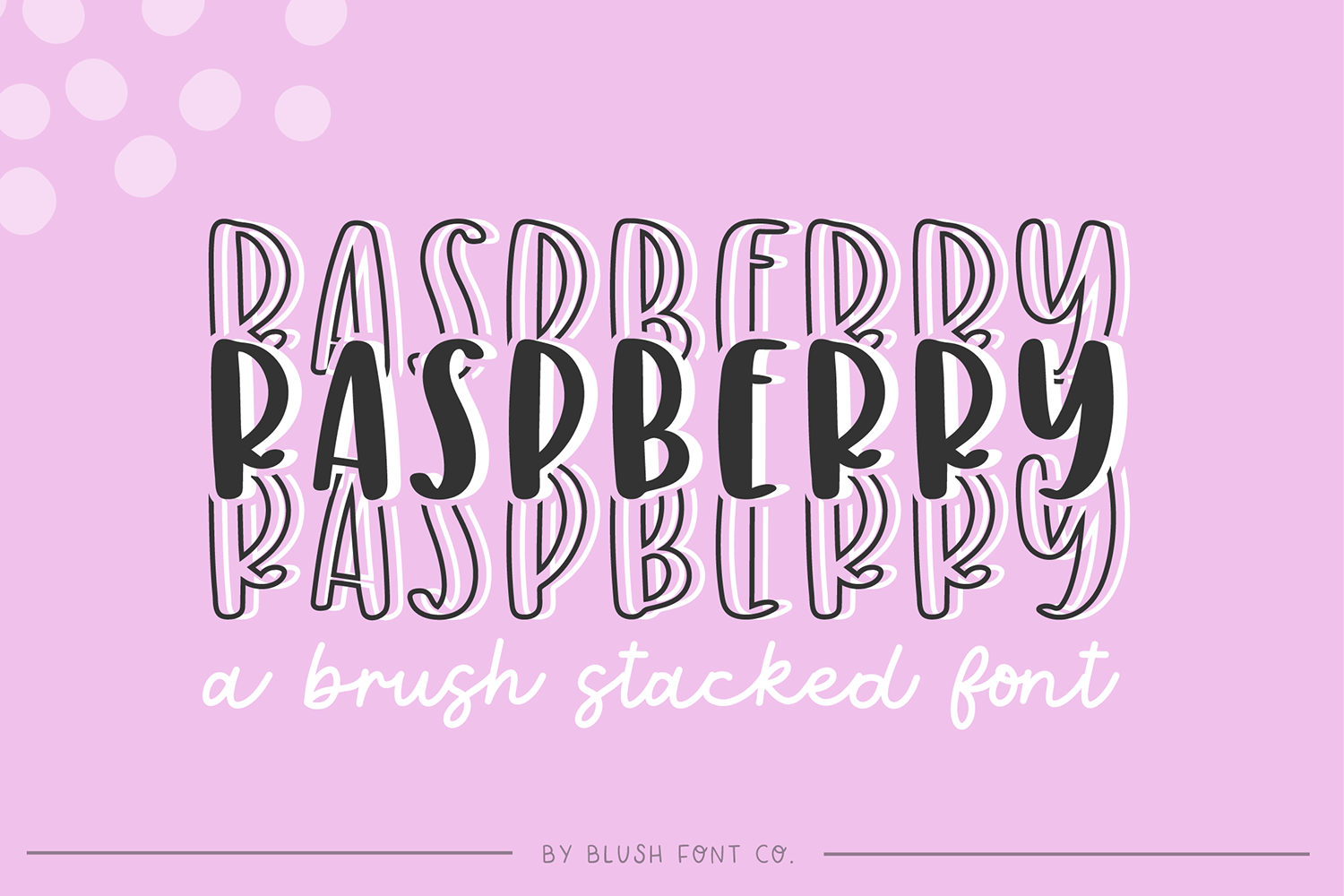
"Raspberry Stacked" a trendy brush display font with a stacked effect.
This font is a trendy display font that is perfect for social media or crafty projects. Use if for branding, crafts for decor, invitations, and more! This font includes numbers and a few punctuation marks (pictured).